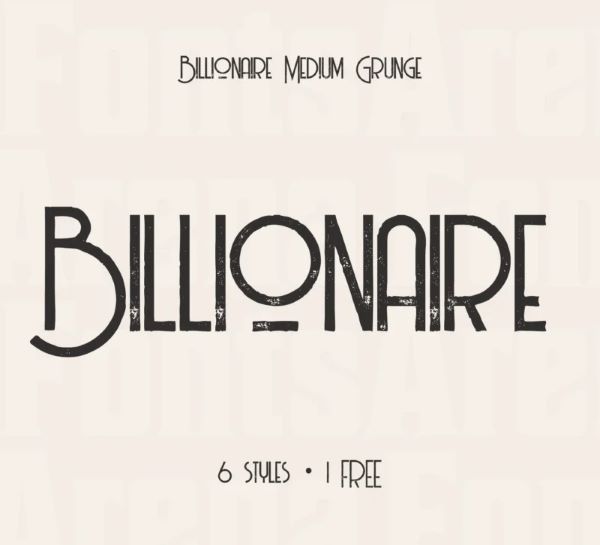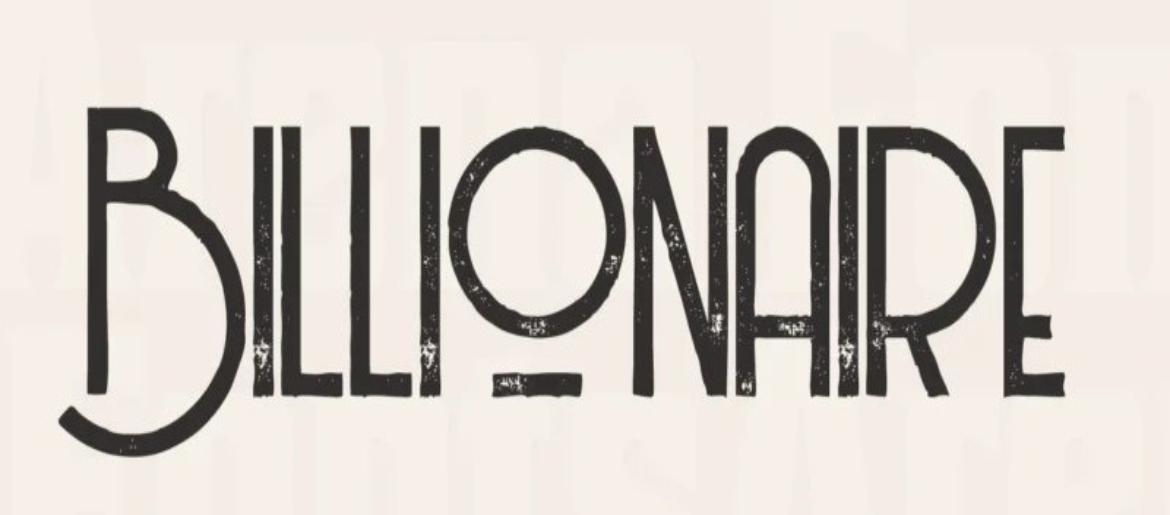
Billionaire Font
Billionaire by Peter Olexa is a refined Art Deco display typeface that balances retro charm with a clean, contemporary finish. Its all-caps design offers two distinct sets of capitals — one featuring expressive, curvy terminals for select characters, the other opting for a more restrained treatment — giving designers a versatile toolkit for logos, business cards, websites, magazines, and upscale branding where elegance and professionalism need to speak in the same breath. Free for personal use.